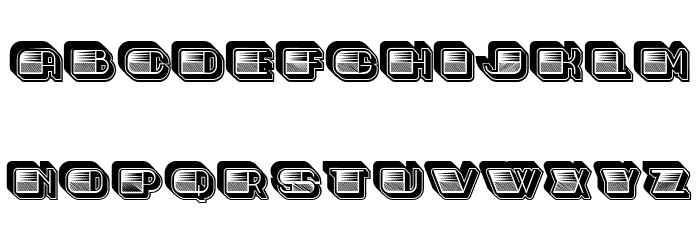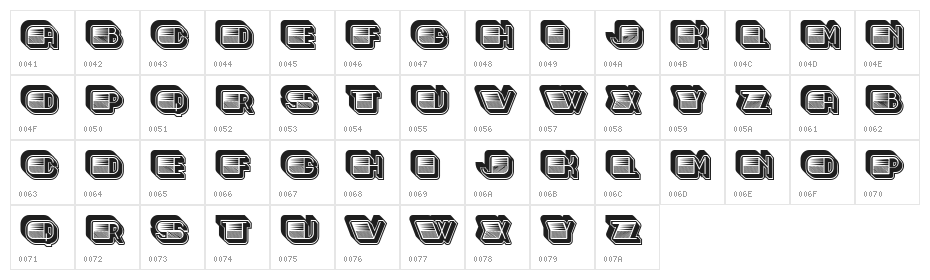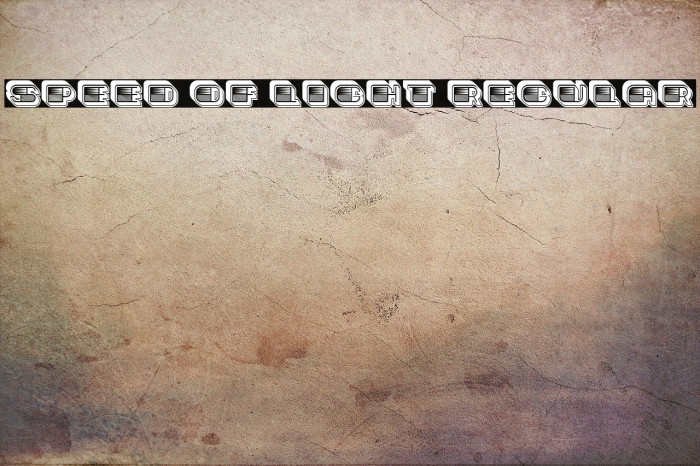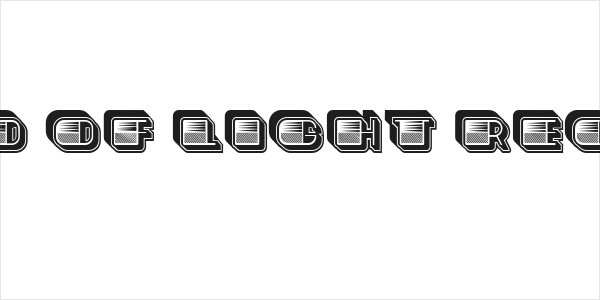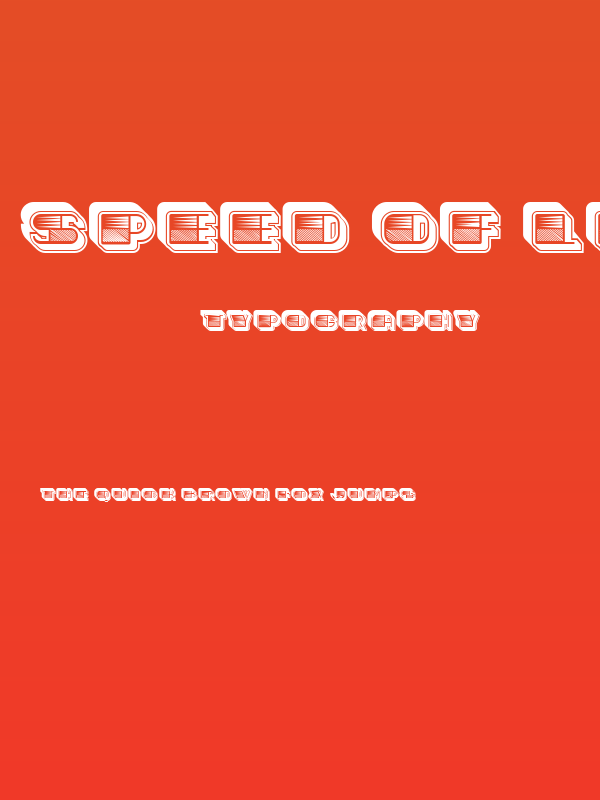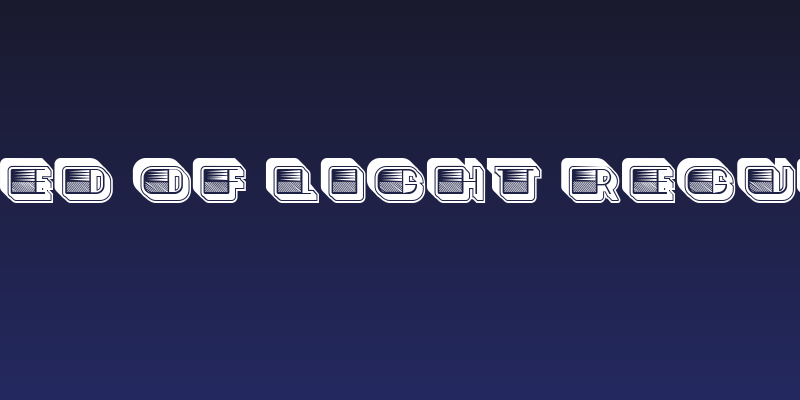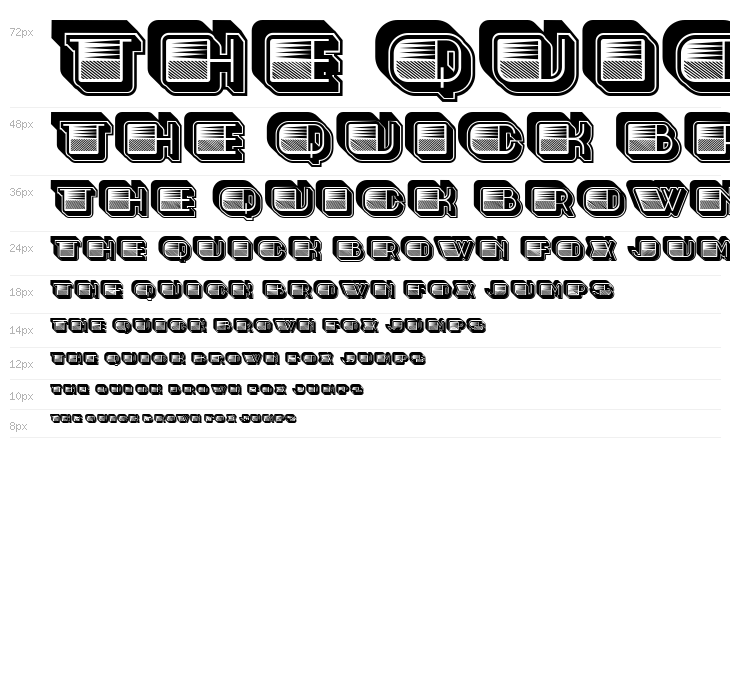
Speed of Light Regular Font
Speed of Light Regular Description
This font features a bold, futuristic design with a three-dimensional effect. Each character is outlined with a thick black border, creating a striking contrast against the inner detailing. The interior of each letter is filled with diagonal lines, adding texture and depth. The overall appearance is dynamic and eye-catching, making it suitable for projects that require a modern and energetic aesthetic. The font's unique style is reminiscent of digital or sci-fi themes, making it ideal for creative and innovative designs.
| Proposed Projects | Ideal for sci-fi themed posters, video game titles, tech branding, and futuristic event flyers. |